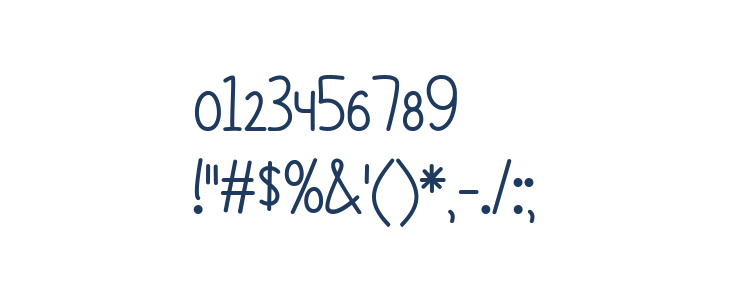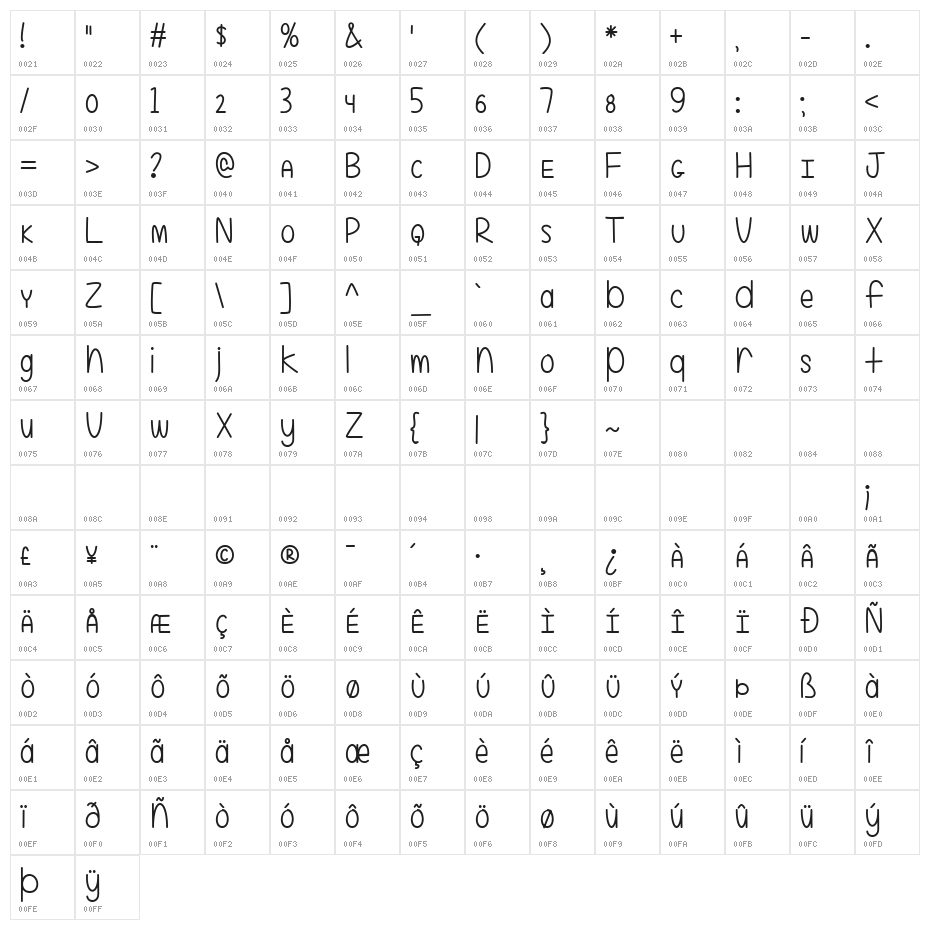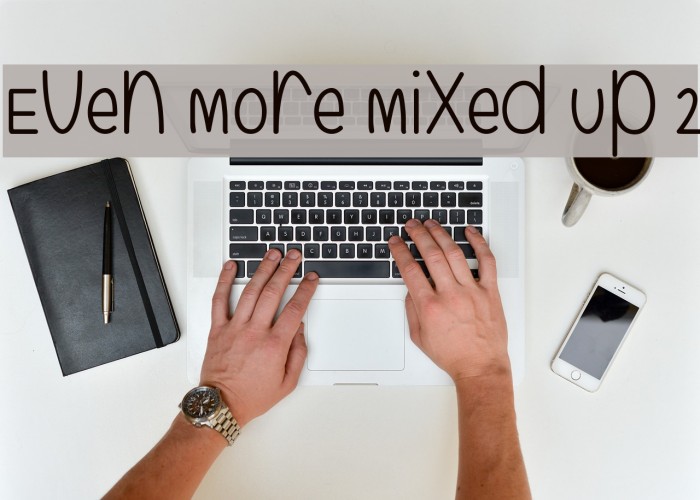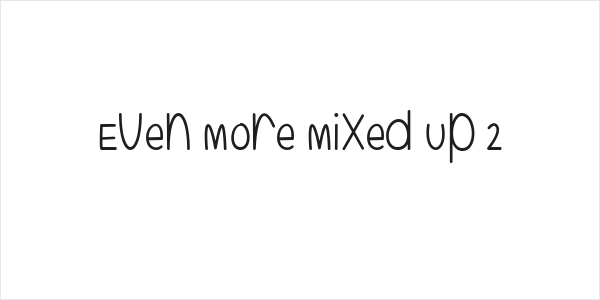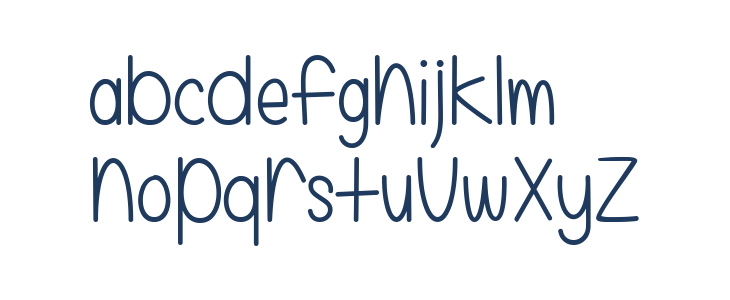
Even More Mixed Up 2 Font
Even More Mixed Up 2 Description
This playful and quirky font features a handwritten style with a casual, informal appearance. The letters are rounded and slightly uneven, giving it a friendly and approachable feel. The uppercase and lowercase letters are distinct, with some characters exhibiting unique flourishes, such as the looped 'Q' and the curved 'R'. The numbers and special characters maintain the same whimsical style, making it versatile for various creative projects. Its legibility and charm make it suitable for children's books, invitations, and playful branding.